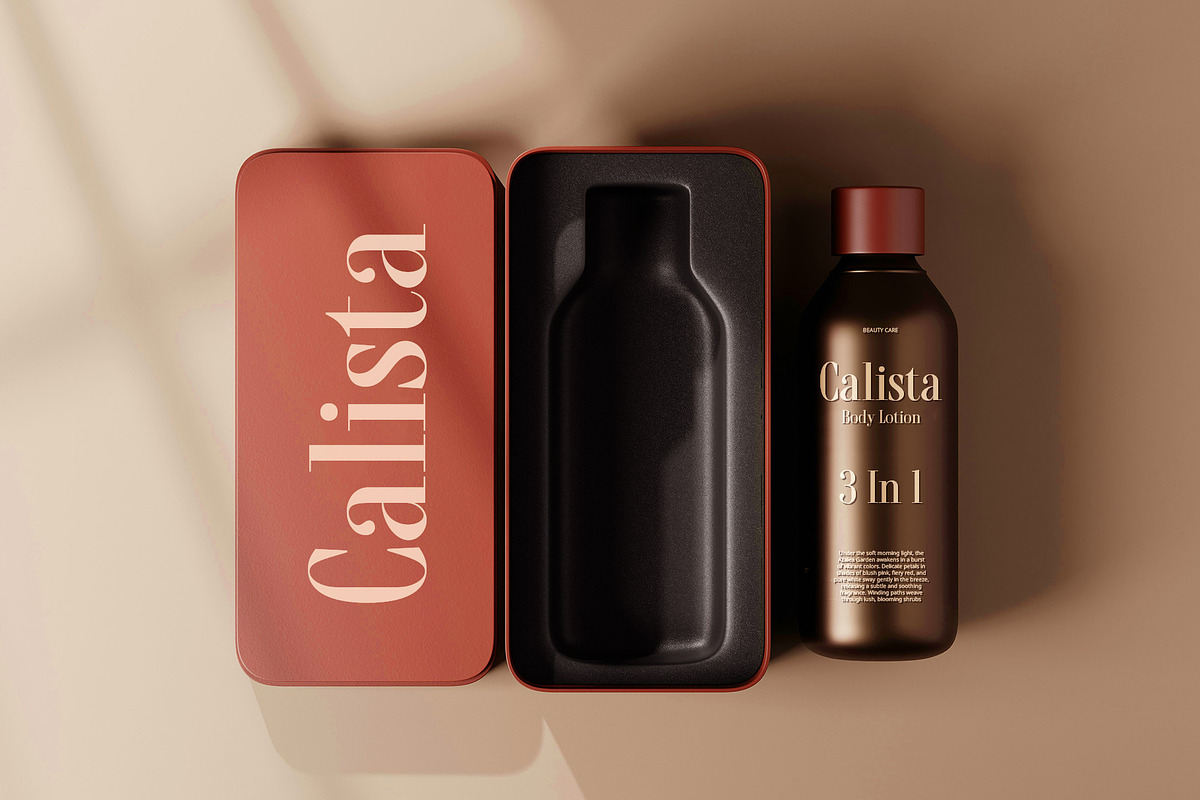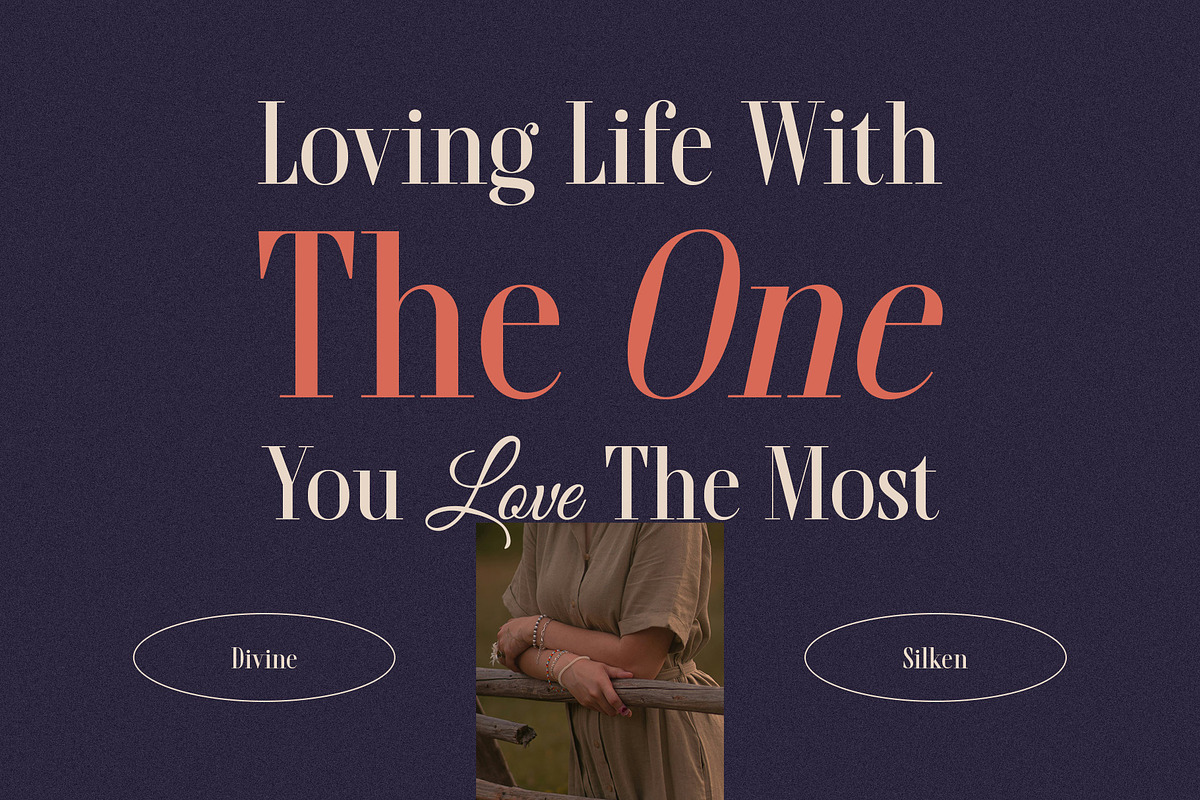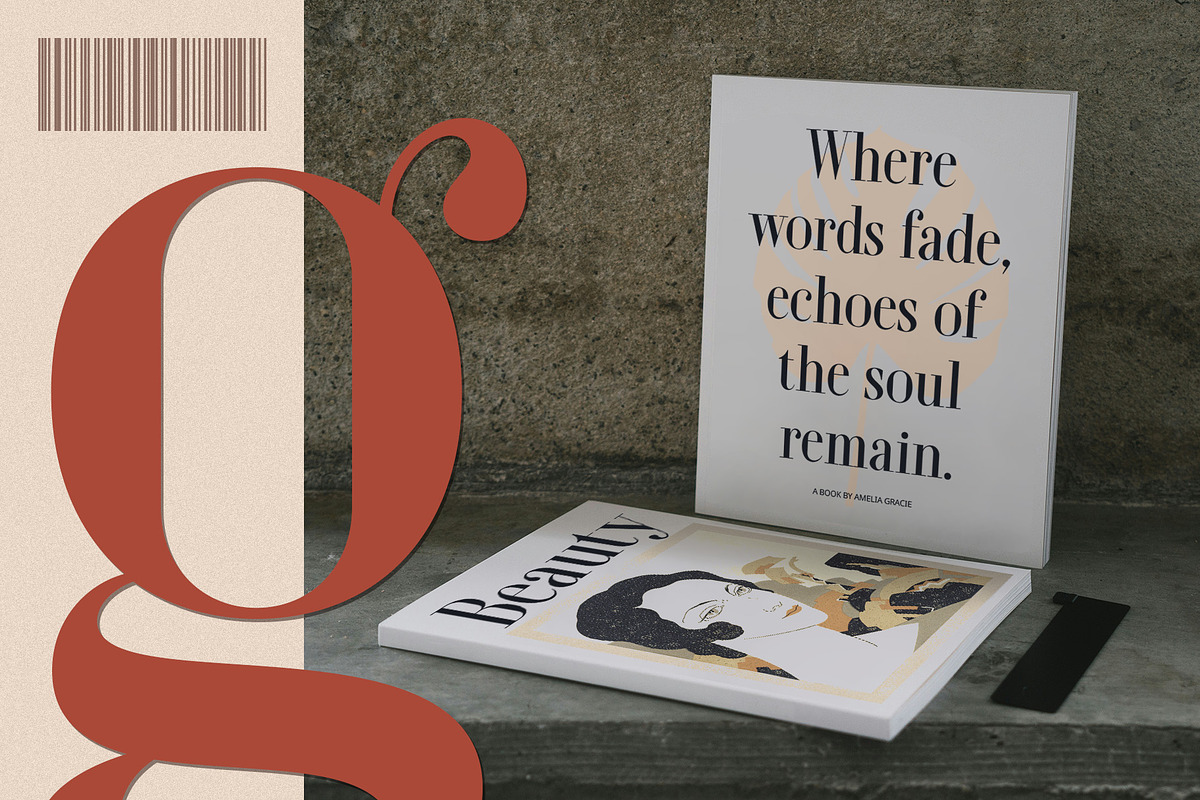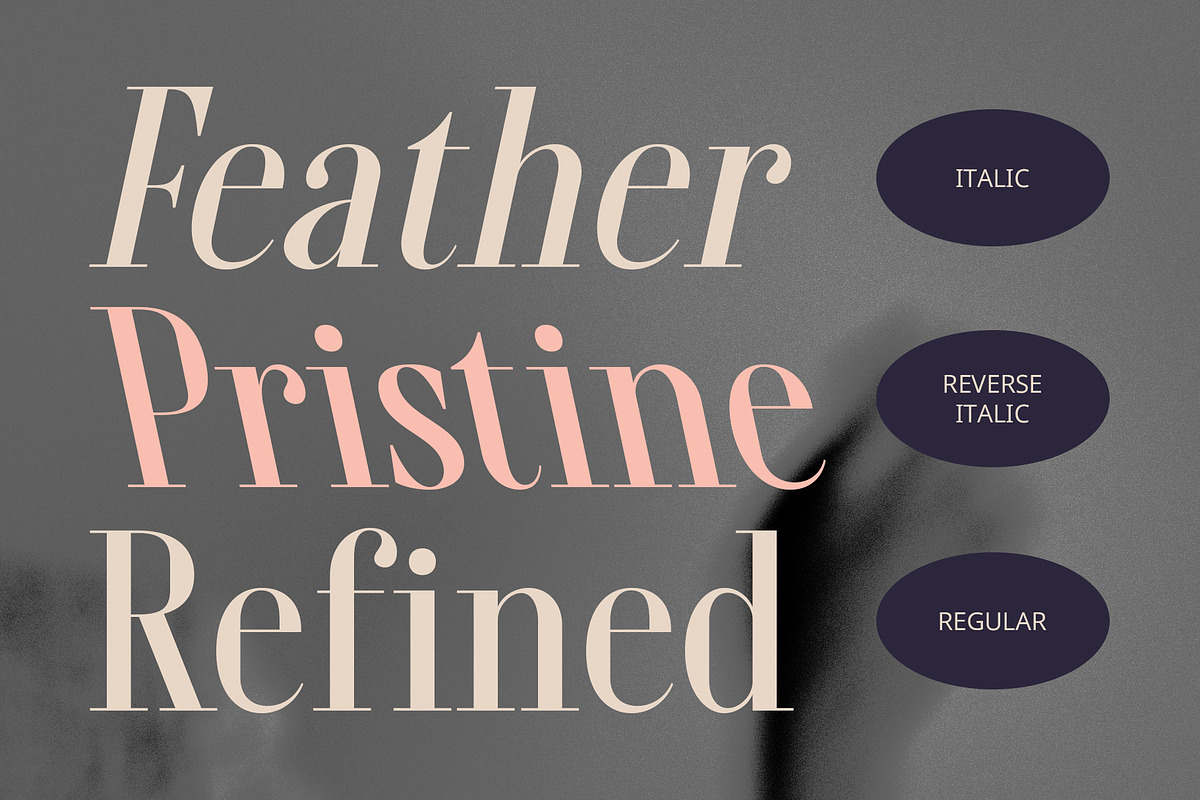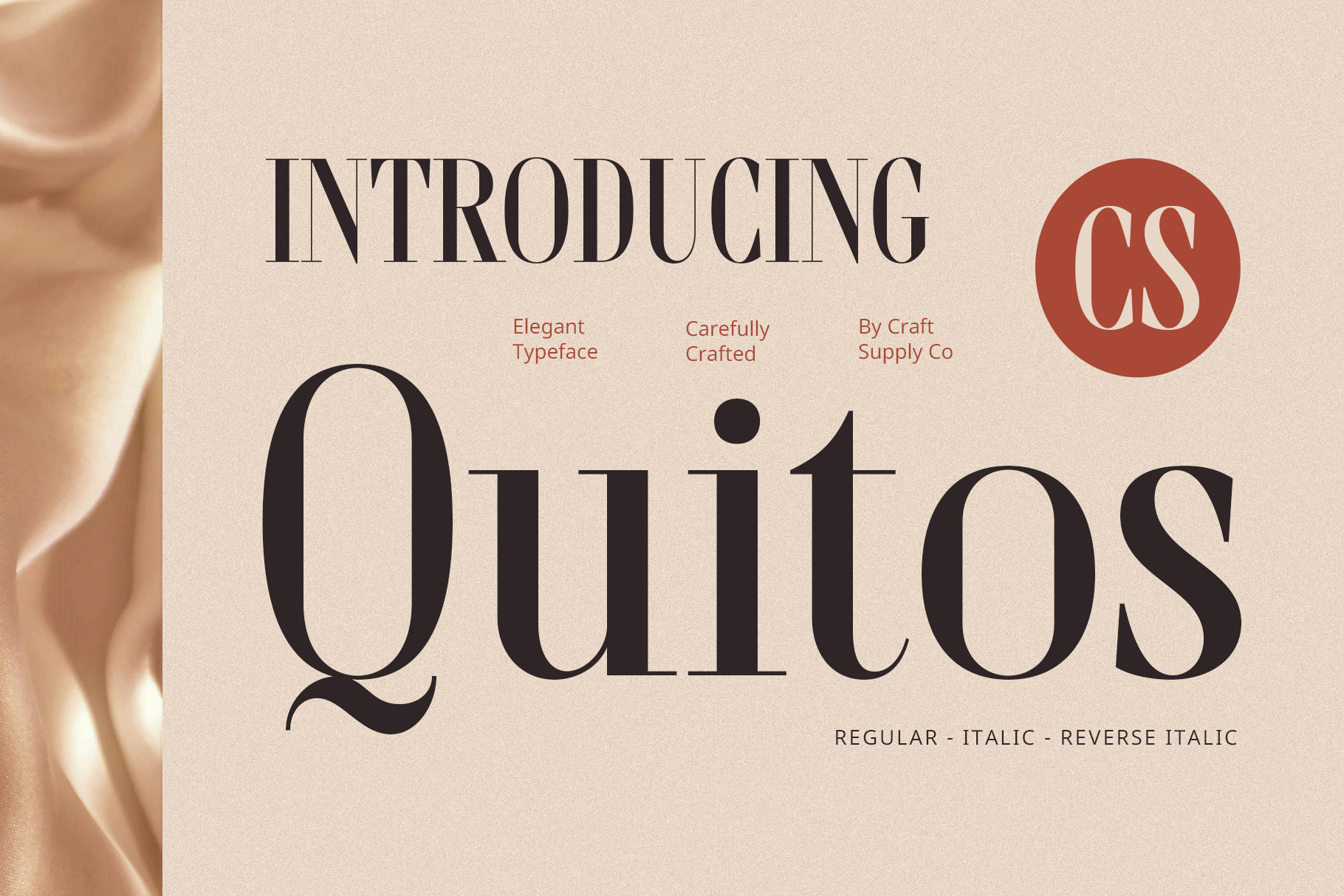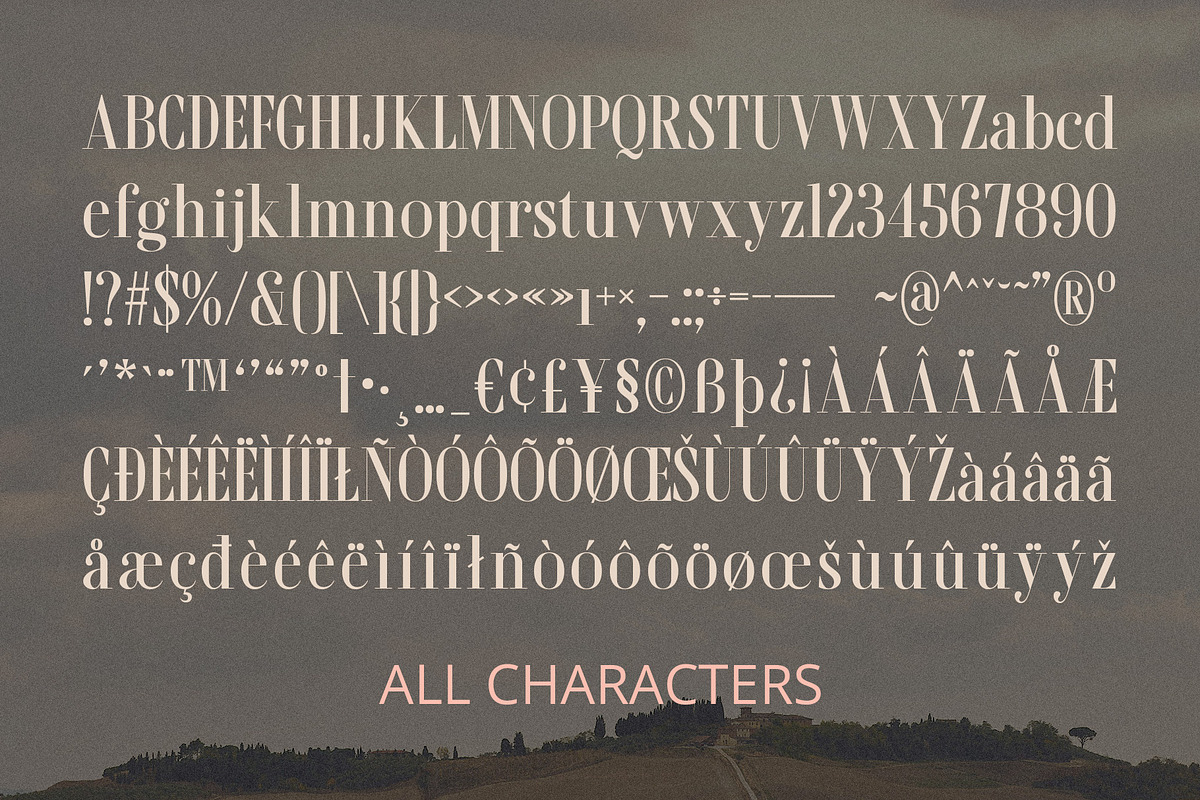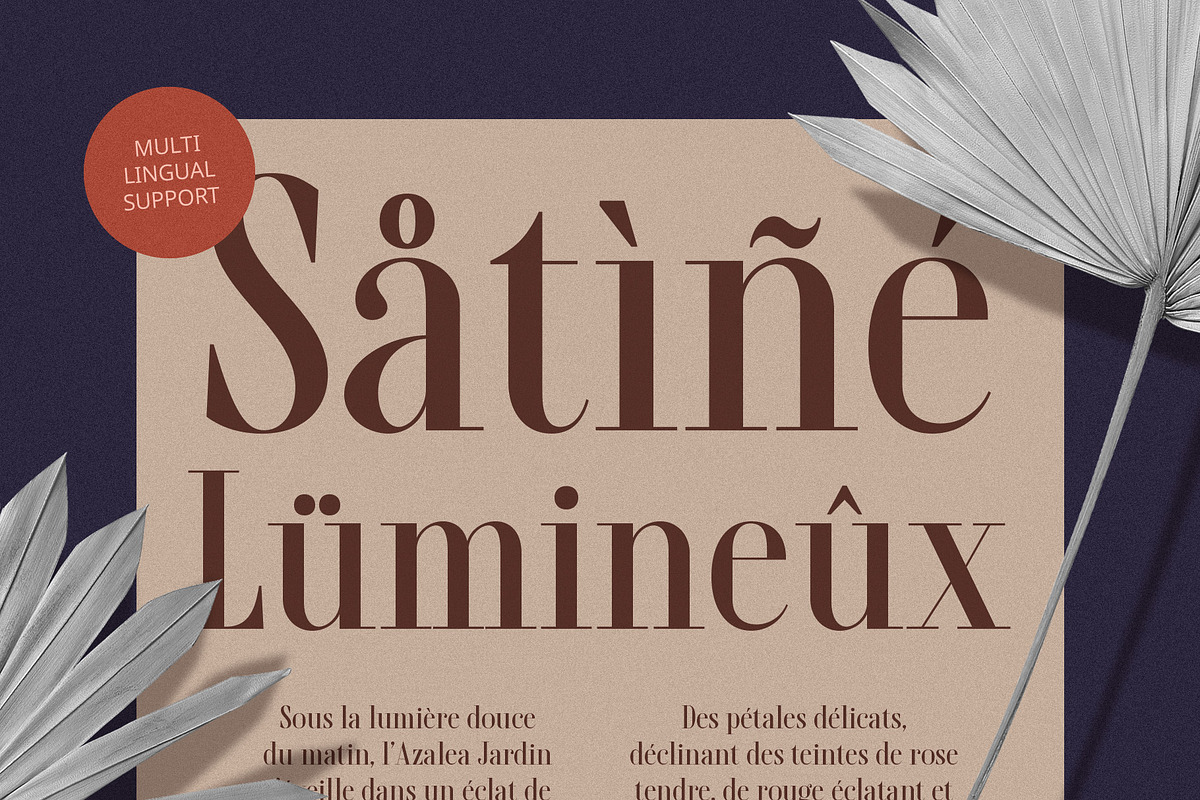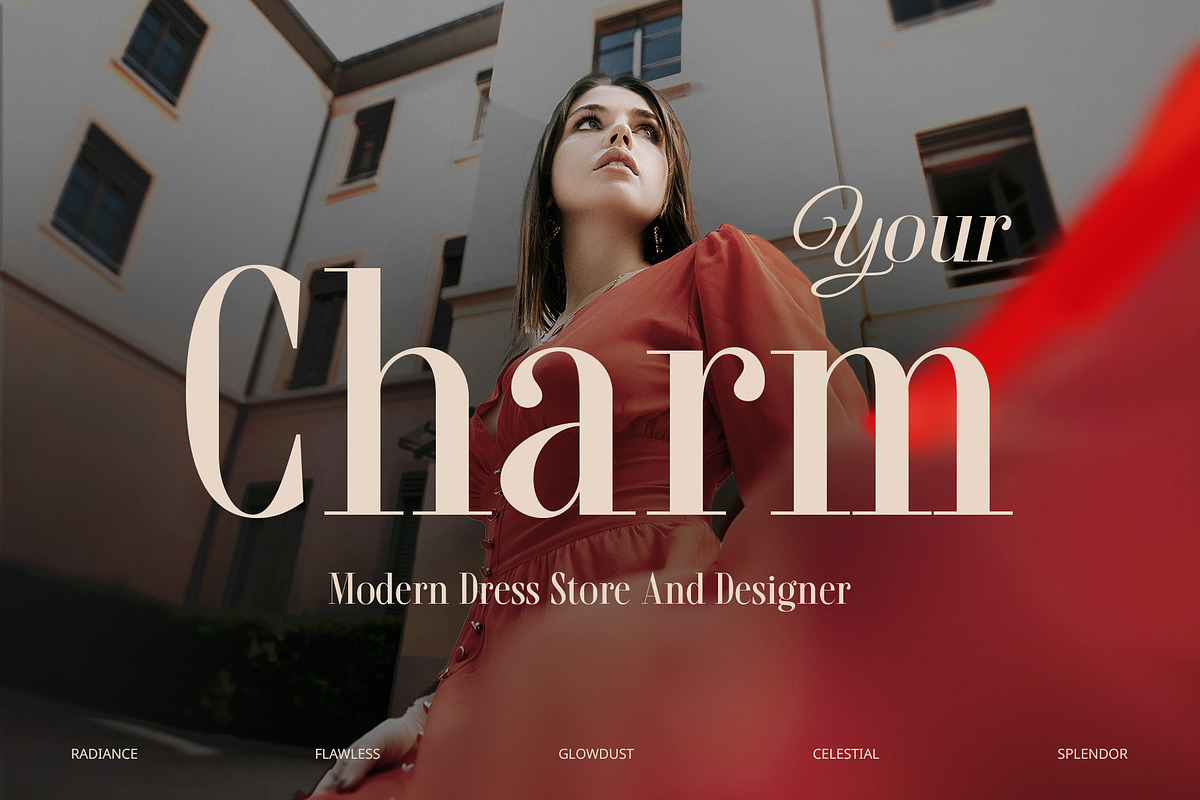
CS Quitos – Classic Font
CS Quitos – Classic Font: Timeless Elegance with a Luxurious Touch
Modern Serif with a Didone Influence CS Quitos is a modern serif font that embodies the sophistication of the Didone style. Featuring high contrast between thick and thin strokes, it creates a bold yet graceful aesthetic that is both timeless and contemporary. Its clean structure and refined details make it perfect for premium branding, fashion magazines, and high-end editorial layouts.
Elongated Serifs for a Striking Look One of CS Quitos’ defining features is its long, elegant serifs, which add a sense of grace and distinction. These elongated details create a refined, polished appeal, making the font stand out in luxury packaging, logo design, and sophisticated typography.
Perfect for High-End Branding and Editorial Design Designed for exclusive projects, CS Quitos is an ideal choice for luxury branding, designer labels, and upscale marketing materials. Its contrasting strokes and sleek form ensure that it remains visually striking, whether used for headlines, advertising campaigns, or elegant print materials.
Versatile Yet Distinctive The blend of classic and modern elements in CS Quitos makes it highly versatile across various creative applications. Whether you’re crafting an opulent book cover, a stylish invitation, or a bold editorial spread, this font delivers an unmistakable sense of prestige and elegance.
- CS Quitos Regular
- CS Quitos Italic
- CS Quitos Reverse Italic